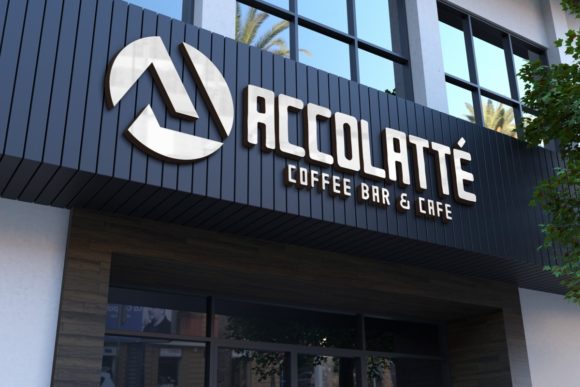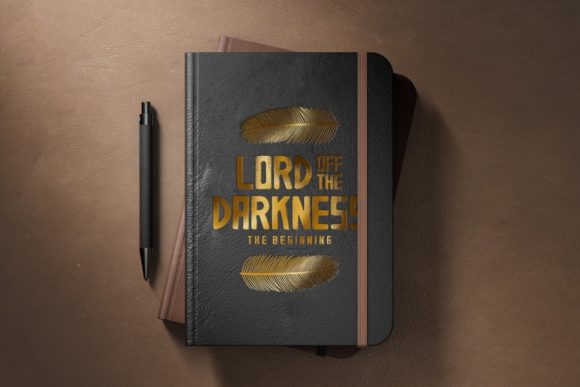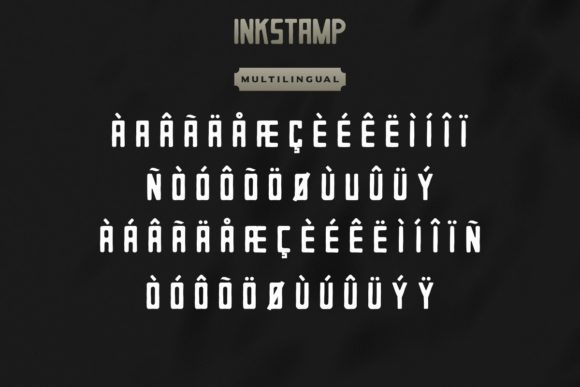
Introduction to Inkstamp Font
You’re sitting at your desk, staring at a blank canvas, and suddenly, the perfect idea hits you. But, there’s just one problem – the font. You want something that screams vintage charm, something that transports you back to a bygone era, but still looks sleek and modern. That’s when you stumble upon the Inkstamp Font, a game-changing sans serif font that’s about to revolutionize your creative projects.
With its unique style inspired by press machine lettering, the Inkstamp Font is a design resource like no other. Its versatility makes it perfect for a wide range of industries, from events and weddings to branding and fashion. Whether you’re working on a high-end campaign or a personal project, this font is sure to bring a touch of sophistication and elegance to your designs.
Key Features of Inkstamp Font
- High-quality, unique hand-drawn design perfect for creative projects.
- Features a transparent background for seamless integration into any design.
- Available in a range of sizes and resolutions, including 300 DPI for high-quality printing.
- Perfect for use in various design applications, including graphic design, digital art, and craft projects.
- Unique characteristics include intricate details and textures, making it ideal for adding a personal touch to any creative project.
Honest Review: Inkstamp Font
I recently stumbled upon the Inkstamp Font and I’m excited to share my thoughts on this design resource. The first thing that caught my attention was the high quality of the font, which makes it perfect for any creative project.
- ✨ Unique and elegant design that sets it apart from other fonts
- ✨ Transparent background, making it easy to customize and use in any design
- ⚠️ Limited font sizes and styles, which may not be ideal for complex designs
- ⚠️ Not suitable for very small text sizes, which can make it difficult to read
Overall, I’m impressed with the Inkstamp Font and would recommend it for designers looking for a unique and high-quality font for their creative projects. While it may have some limitations, its strengths far outweigh its weaknesses.
Inkstamp Font
To get the most out of the Inkstamp Font, use it on a transparent background to create a unique and eye-catching effect. You can also experiment with different font sizes and styles to add depth to your designs.
The Inkstamp Font is perfect for:
- Creating invitations and event materials
- Designing packaging and labels
- Developing branding and marketing materials
Compared to Inkstamp Font, Handmade Chalk is more versatile and suitable for a broader range of design applications. While Inkstamp Font is specifically designed for a distressed, ink-stamped look, Handmade Chalk offers a more general, elegant feel.
2. Distressed Wood
Distressed Wood is a high-quality design resource featuring a weathered, wood-grain texture. It’s perfect for creative projects that require a rustic, vintage feel. Use it for designs that need to evoke a sense of age and wear.
Compared to Inkstamp Font, Distressed Wood is more focused on texture and atmosphere, whereas Inkstamp Font is specifically designed for its unique, ink-stamped look. Distressed Wood can add depth and interest to designs, making it a great alternative to Inkstamp Font.
3. Worn Leather
Worn Leather is a design resource featuring a high-quality, textured leather look. It’s ideal for creative projects that require a sense of luxury and sophistication. Use it for designs that need to evoke a sense of refinement and elegance.